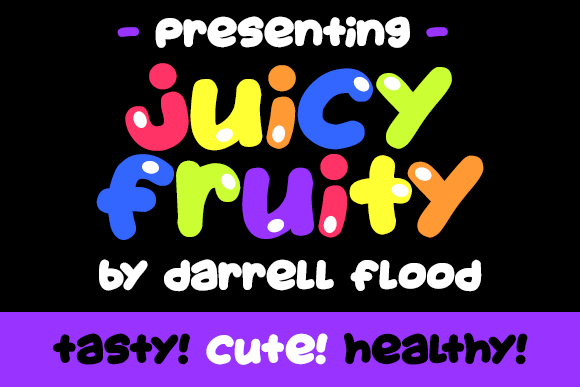
Preview and download Juicy Fruity Font. Created by Darrell Flood in Fancy Cartoon styles with Donationware license.
*Note this font includes "plain" and "highlight" versions. These versions can be layered to create different colored "shines" on your text! Have fun! ----- This font, created by Darrell Flood, is free to use for personal use (tho I appreciate donations!) Please give as much as you honestly feel the font is worth to you. For commercial use you must purchase a license by either: 1. Paying me at least $20 via PayPal to dadiomouse@gmail.com OR 2. Buying a license here: https://www.creativefabrica.com/product/juicy-fruity/ref/74273/ Thank you for downloading this font and I hope you find a use for it! |